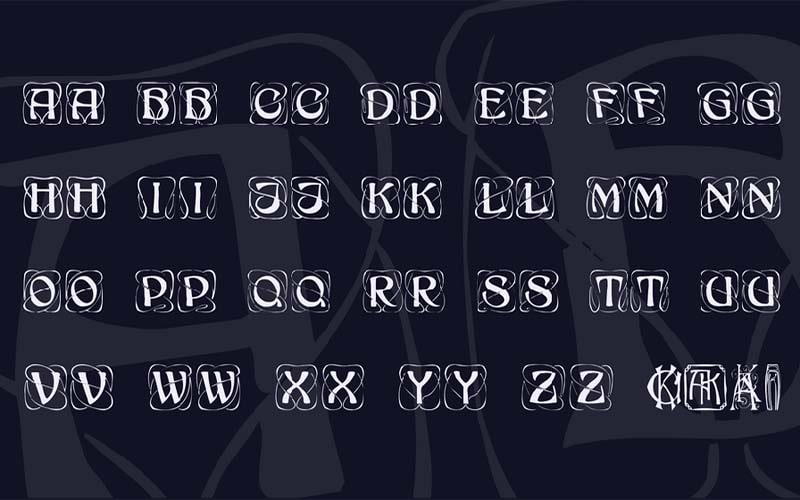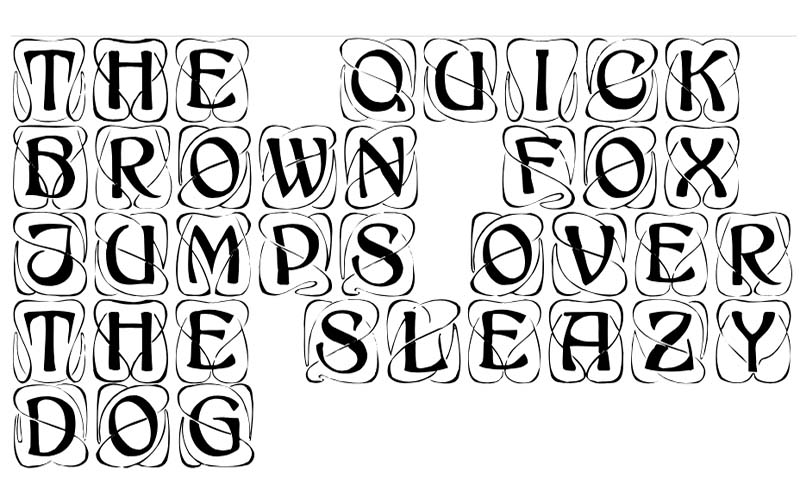
Konanur Font is a beautiful fancy and decorative typeface that has features with a very stylish and mind-blowing eye-catching texture. This initial font which is designed by David Rakowski.
You can use it for various purposes such as best for unique titles, headlines, fashion designing, branding names, invitation cards, wedding cards, and fashion magazines, and also use it wherever you want.
Konanur Font
Therefore, the monogram font works great for features that need to be slightly different from the group. and work in a friendly environment to pair better fonts with other font families.
Based on this it is the best choice to give a great touch in any design. and we advise you not to miss this opportunity. Due to its own unique design, this fancy font will help create a very stylish design.